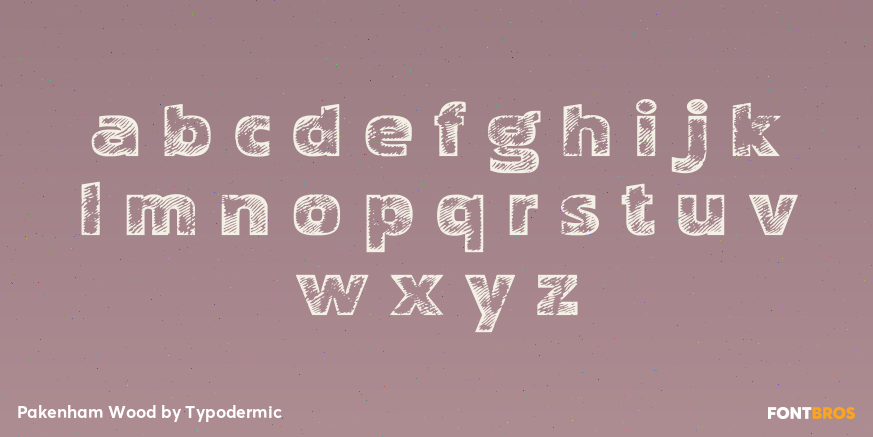
Pakenham Wood
Buy NowPakenham Wood opens the family’s bold forms and fills them with irregular, hand-drawn grain lines. A firm outer edge holds each letter together while the changing internal marks suggest cut timber or painted woodgrain rather than generic abrasion.
Use Pakenham Wood for cabin and lodge names, lumber or woodworking promotions, campground signs, outdoor-market packaging, and rustic event titles. Keep it large enough for the grain to remain visible, especially in print. Pakenham Boss can provide a dimensional companion, while the ordinary family styles keep maps, prices, and directions clear.